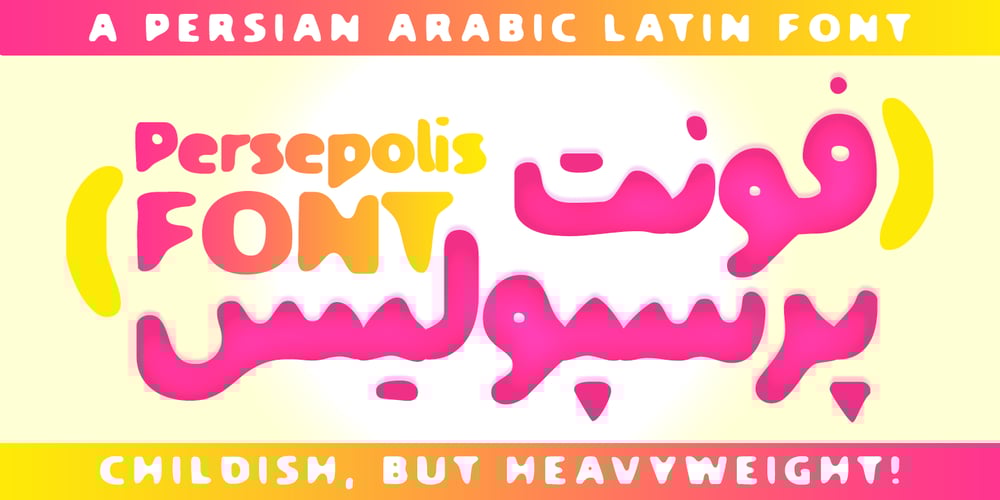
Persepolis
Persepolis font
Persepolis Font Family was designed by Shahab Siavash and published by Si47ash Fonts. Persepolis contains 1 styles and family package options. Childish but heavyweight! A rounded bubbly heavy font that was designed for texts related to kids and children. With its melted and soft forms, it brings delight and makes your letters to be pleasant to be read. Apadana font support Persian, Arabic and also Basic Latin. A joyful choice for all the designers and creatives.Shahab Siavash, the designer has done more than 30 fonts and got featured on Behance, Microsoft, McGill University research website, Hackernoon, Fontself, FontsInUse,… Astaneh text and headline font which is one of his latest designs, already got professional typographers, lay-out and book designers’ attention as well as some of the most recognizable publications in Arabic/Persian communities.